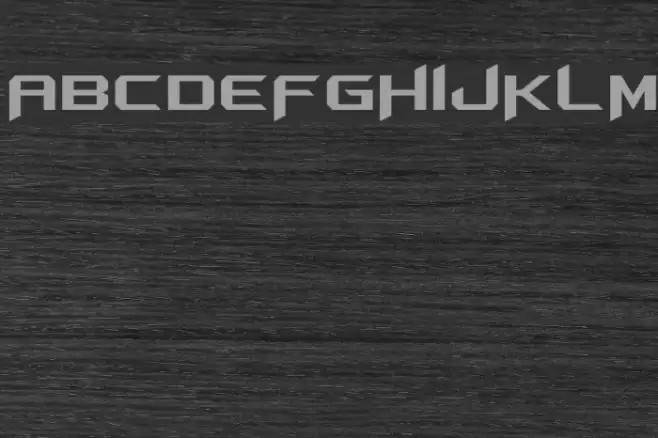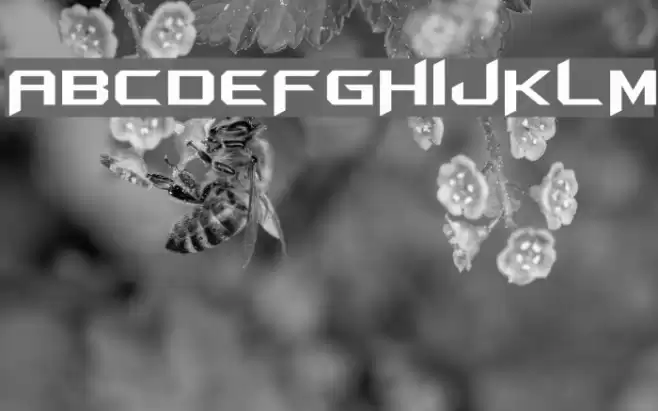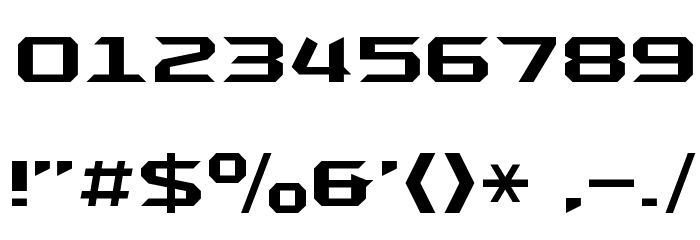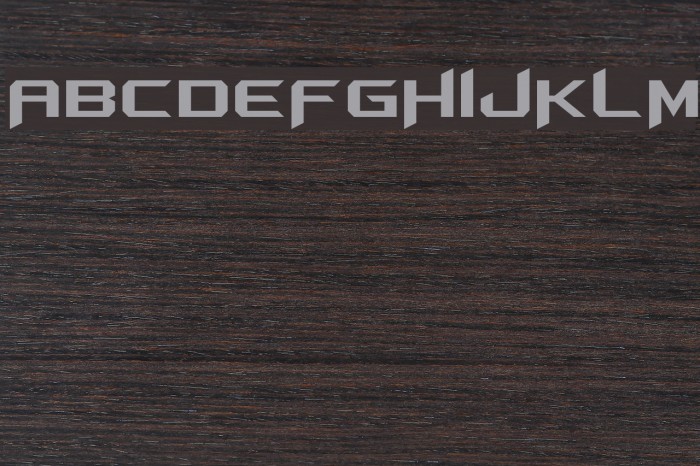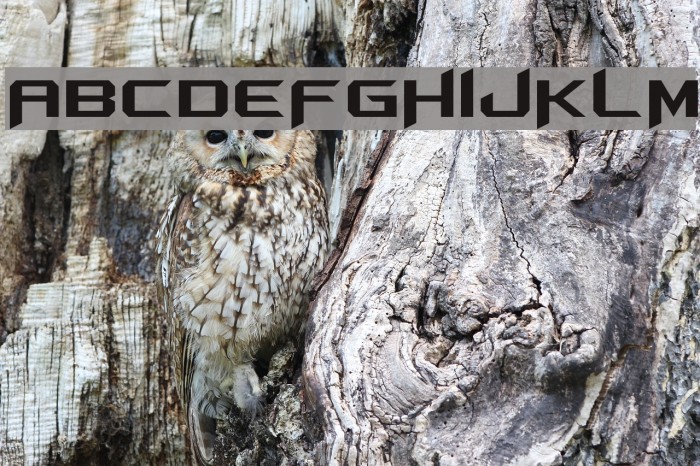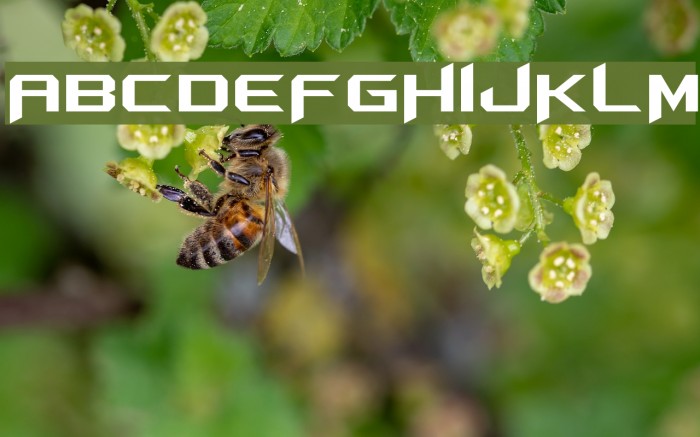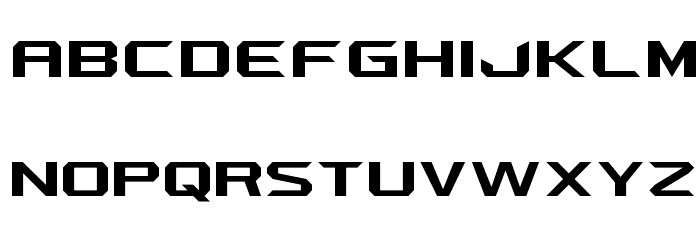
Aeromatics NC Font
Aeromatics NC Description
This font features a bold, geometric design with sharp angles and a futuristic aesthetic. The characters are constructed with a consistent stroke width, giving it a uniform appearance. The uppercase and lowercase letters share a similar structure, enhancing the cohesive look. The numbers and special characters maintain the same angular style, ensuring visual harmony across all glyphs. This font's distinct, modern look makes it suitable for projects that require a strong, impactful presence.
A bold, geometric font with a futuristic and angular design from Uncategorized fonts.
- Proposed Projects: Ideal for technology branding, sci-fi posters, video game titles, and modern logos.